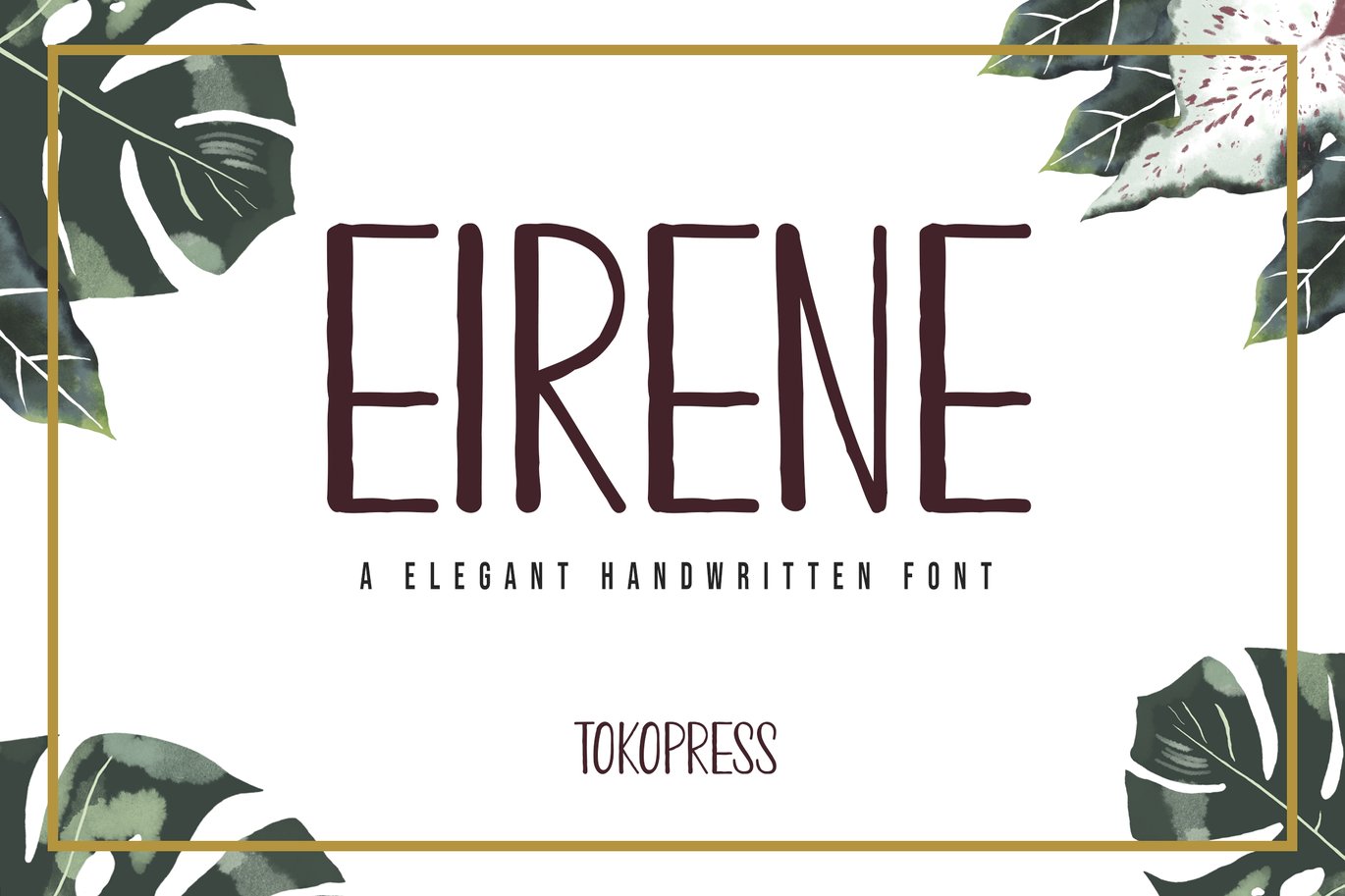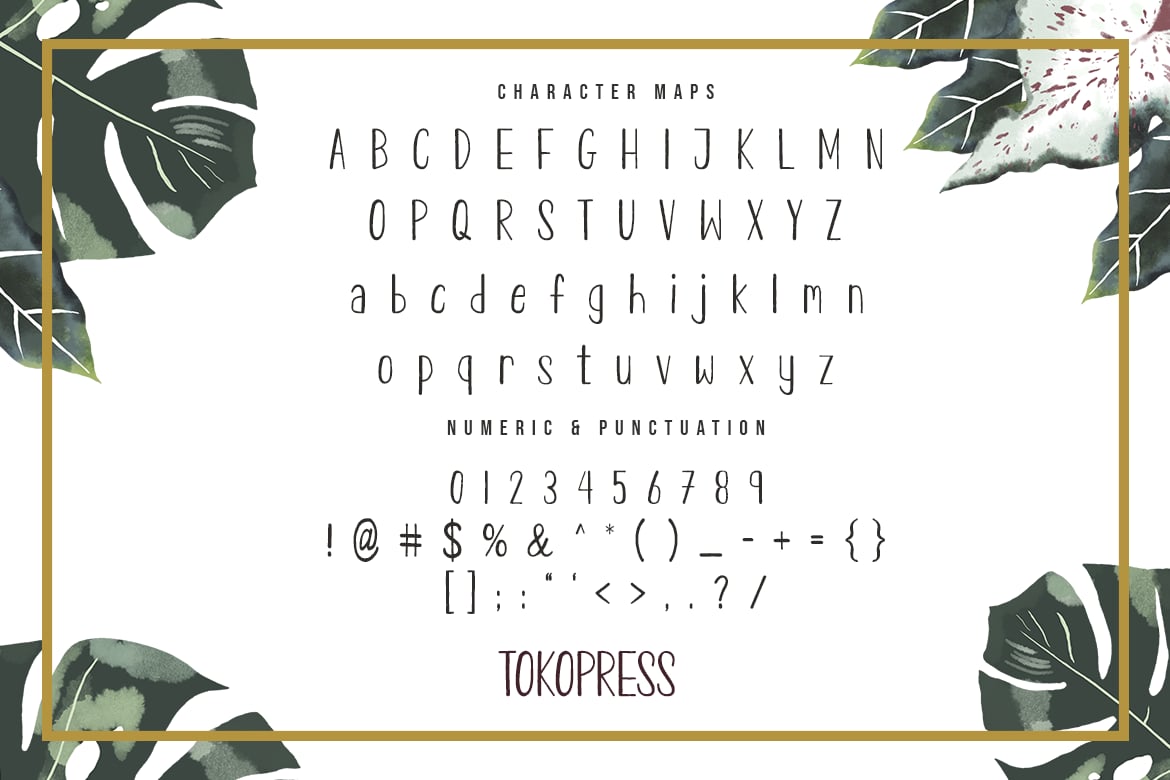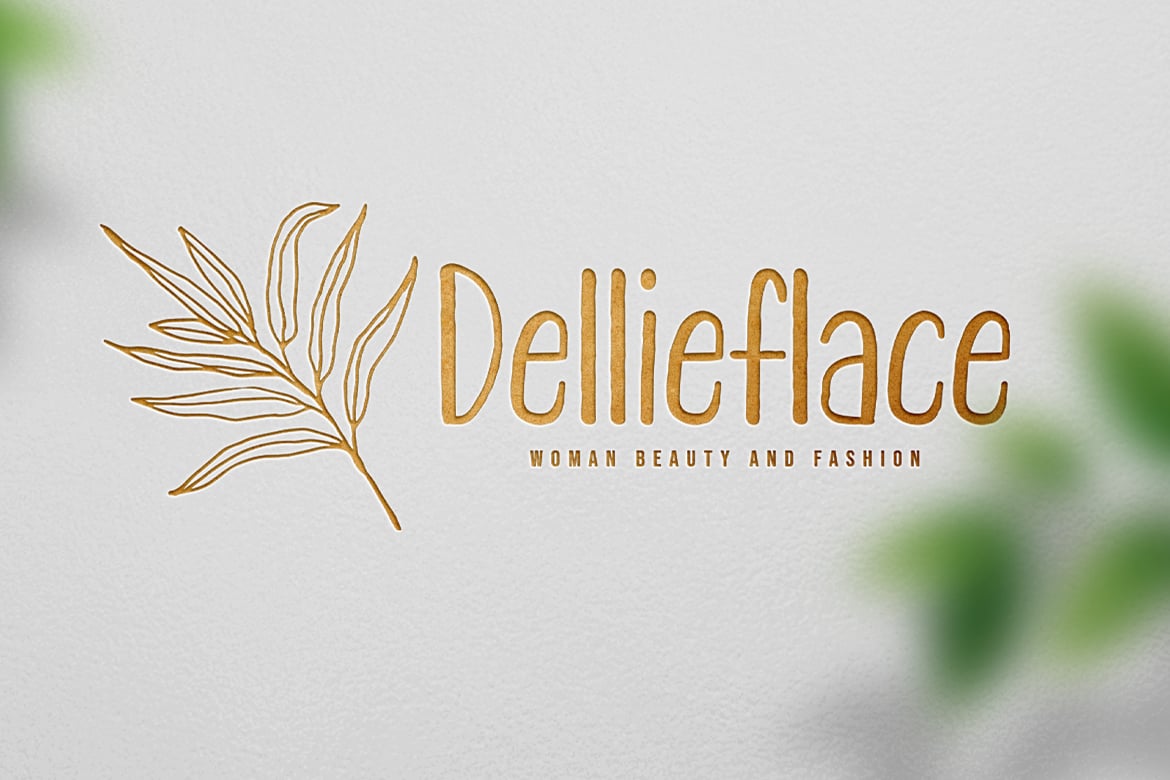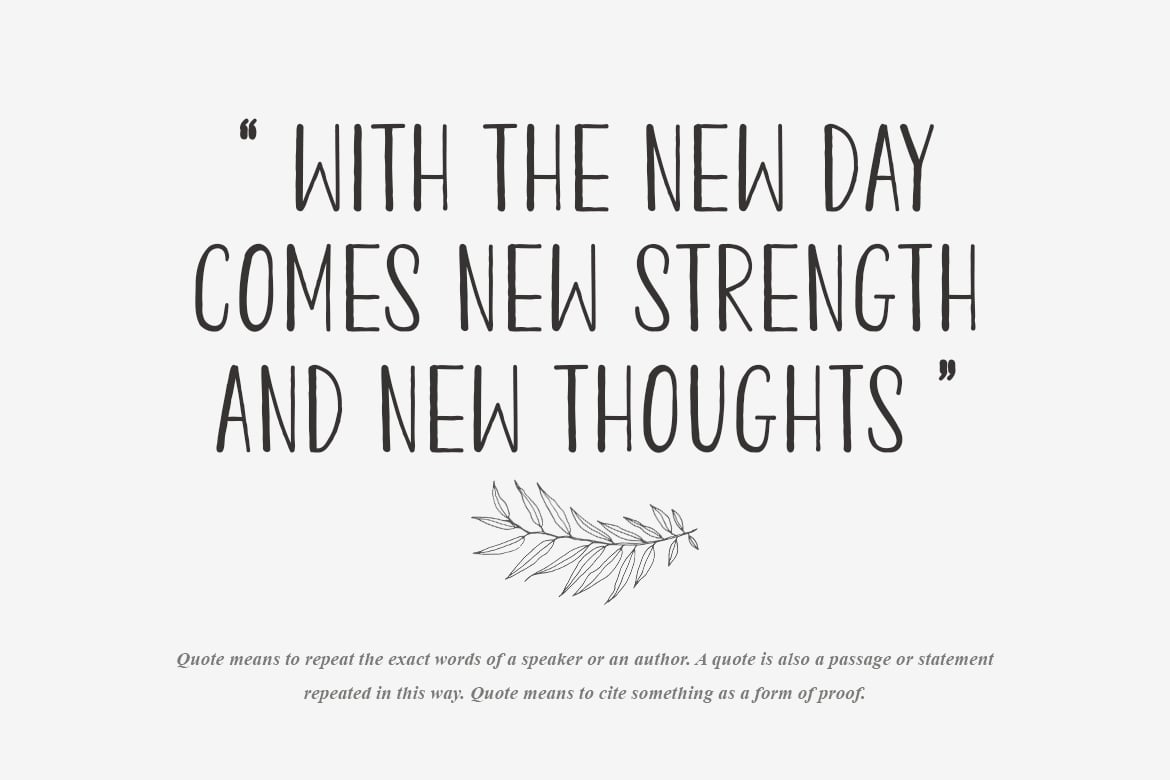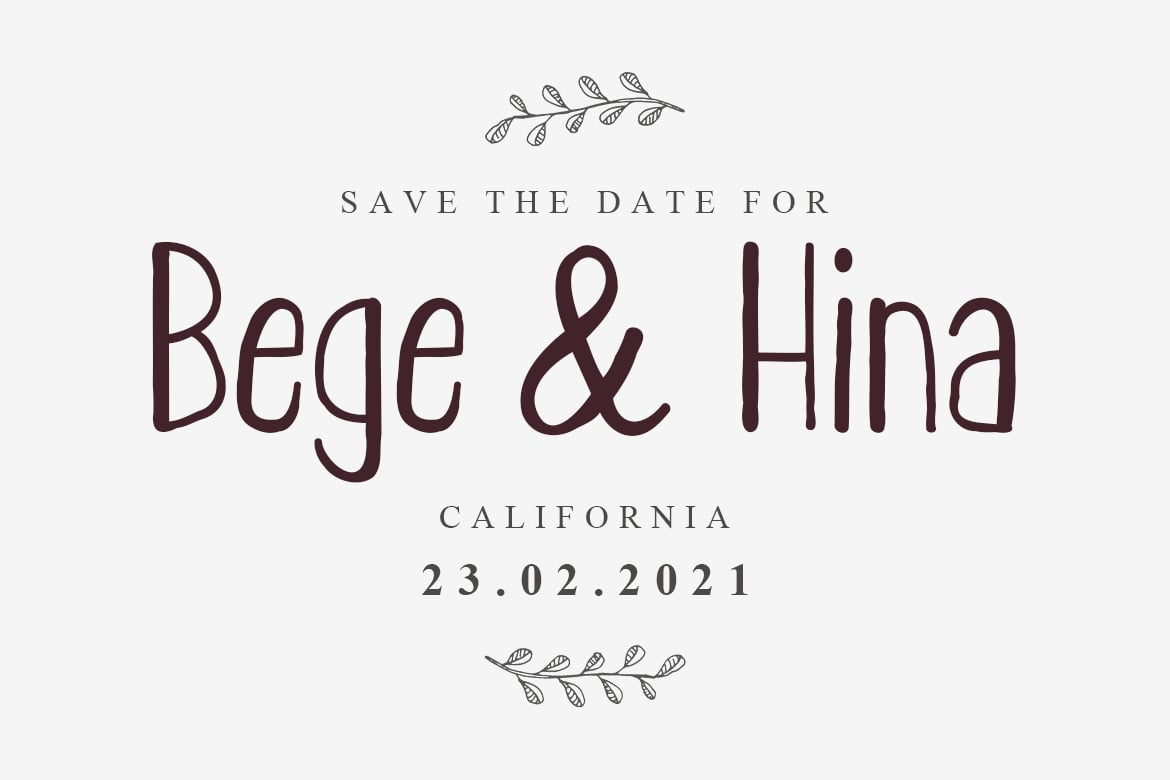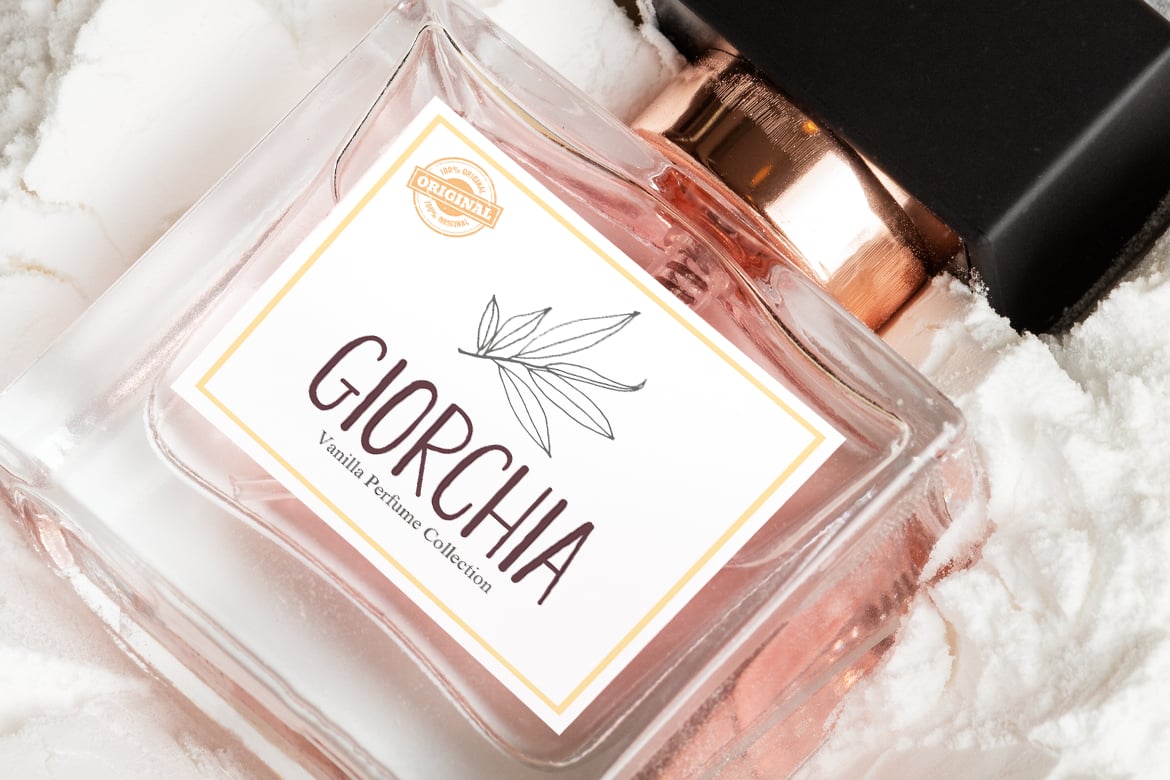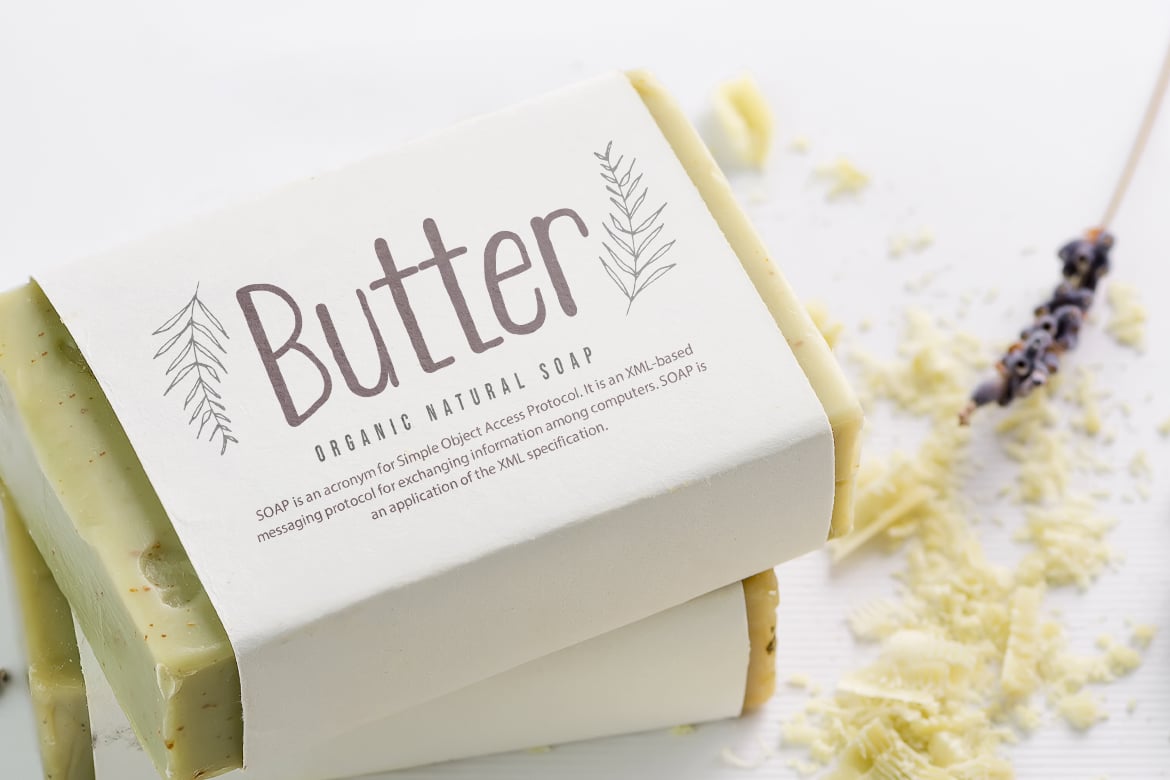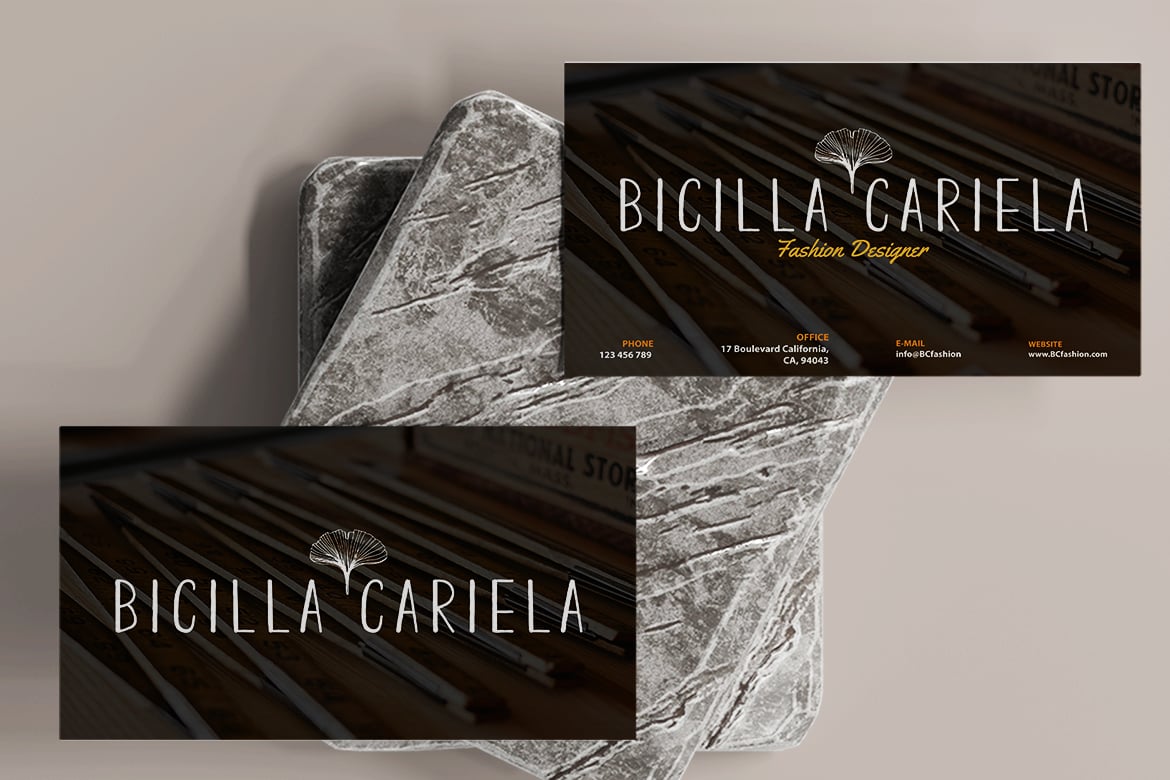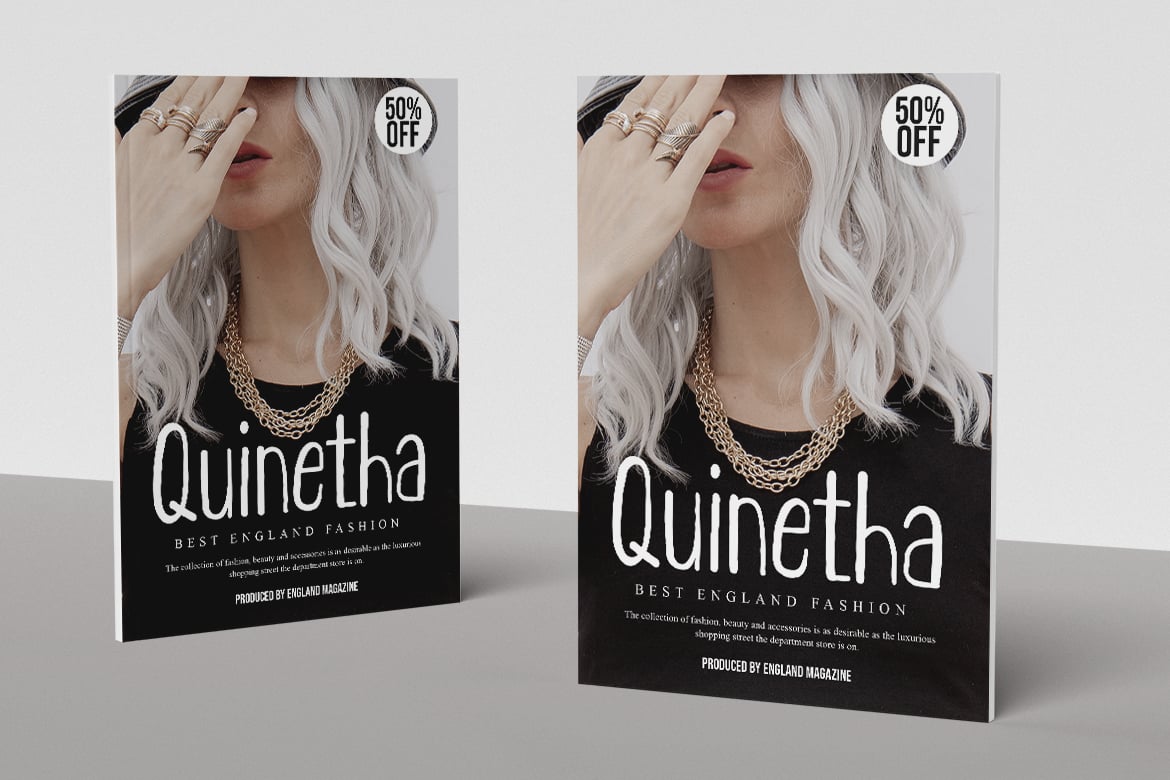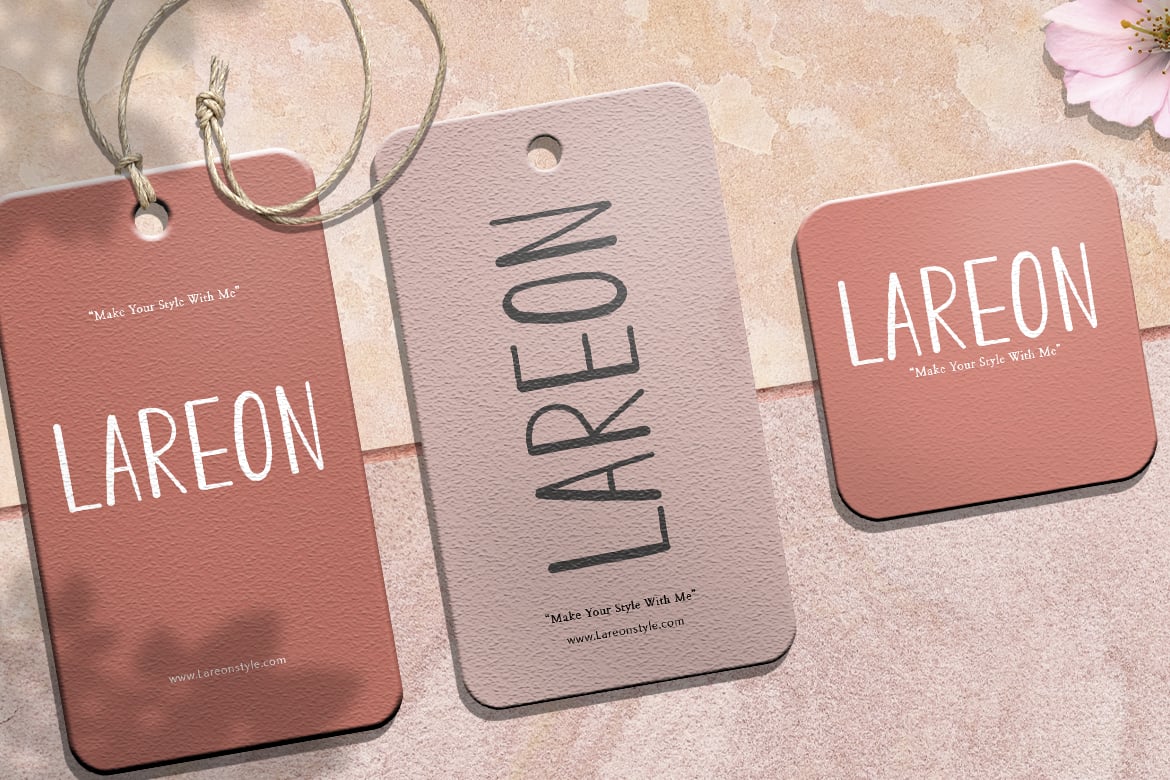
Eirene – Girly font
Eirene- Cute font
Calm and cute, speaks like a soft feather with smoothness all over it.
Suit perfectly for female segmented magazine, poster, movie title, music poster, youtube covers, youtube thumbnails, social media page covers and so on…